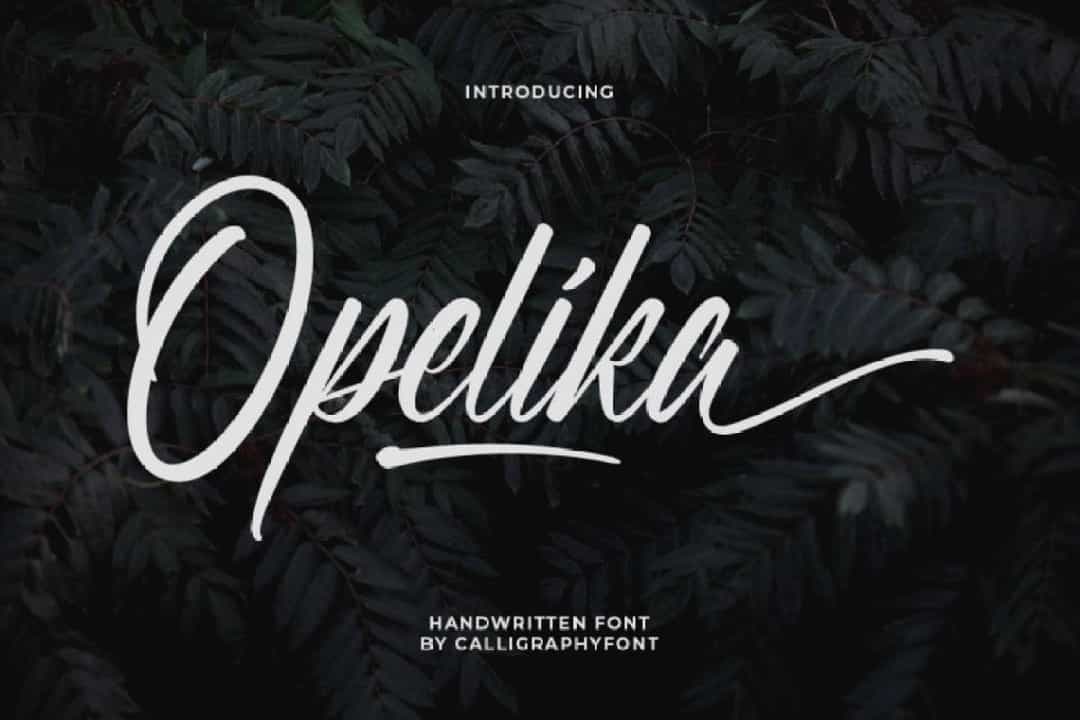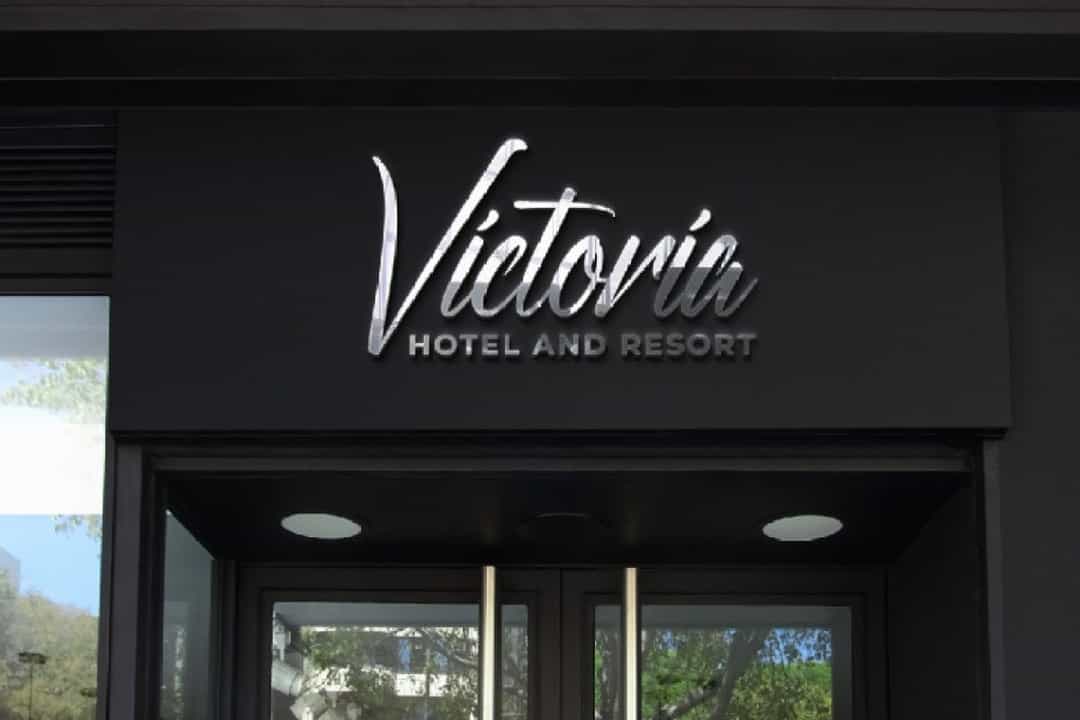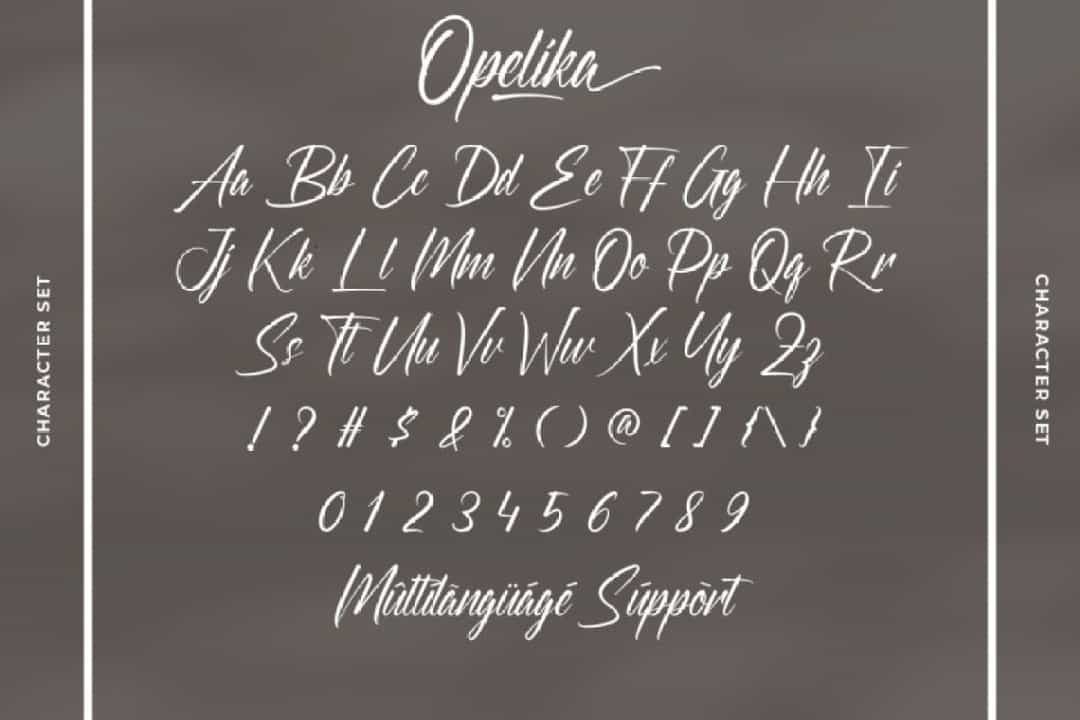
Opelika is a captivating handwritten script typeface. Featuring modern, elegant, sophisticated designs perfect for luxury writing and brush font. Opelika comes complete with sophisticated characters perfect for videos, social media logotypes, invitations and flyers alike.